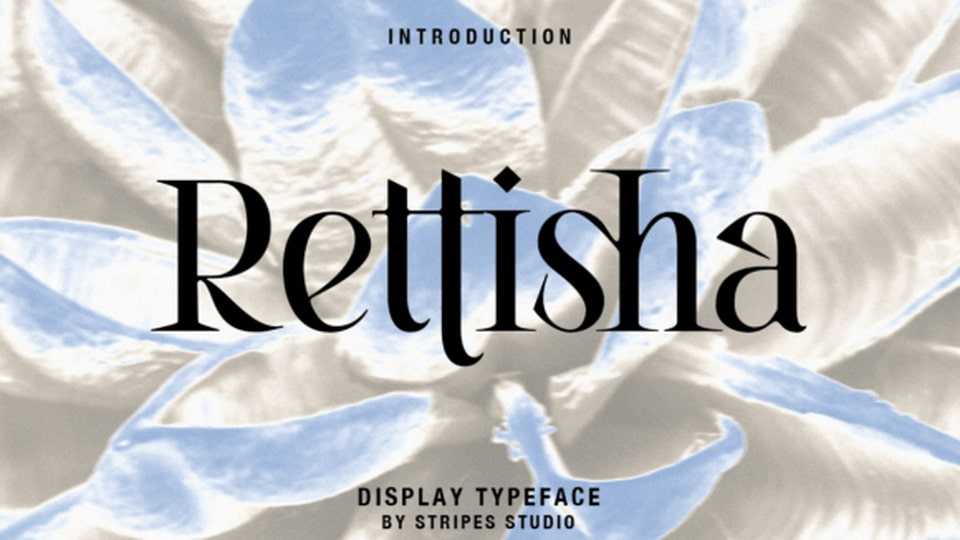
Download Rettisha font, a stylish serif with beautiful ligatures designed with clean and high contrast. Add interest with adding beautiful ligatures to make your typography truly unique.